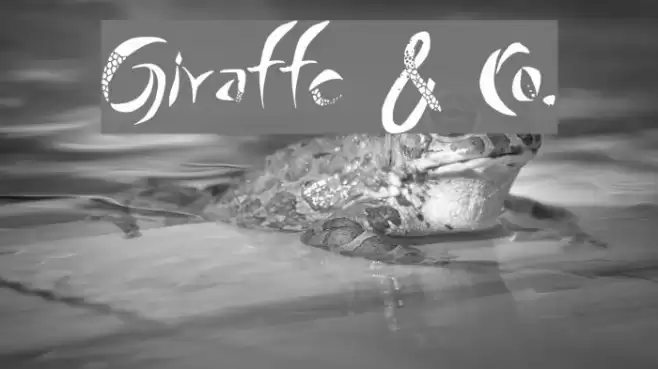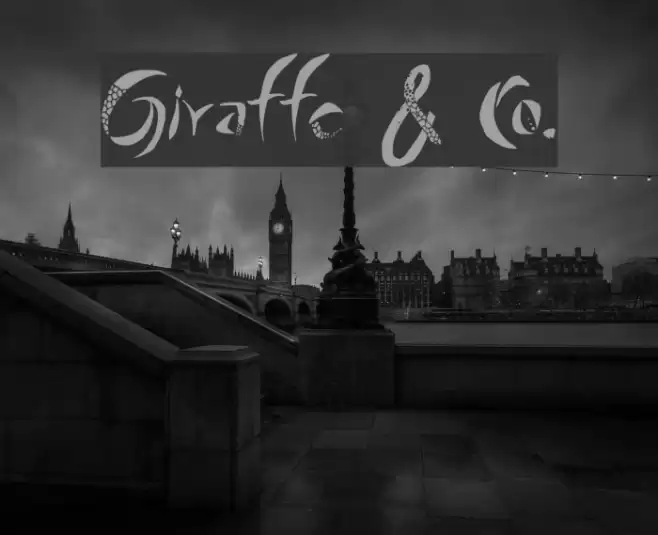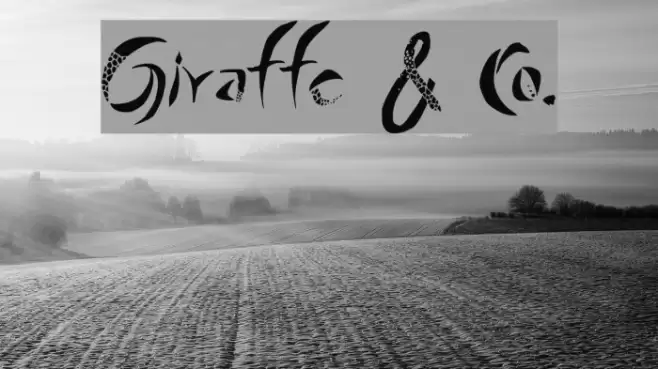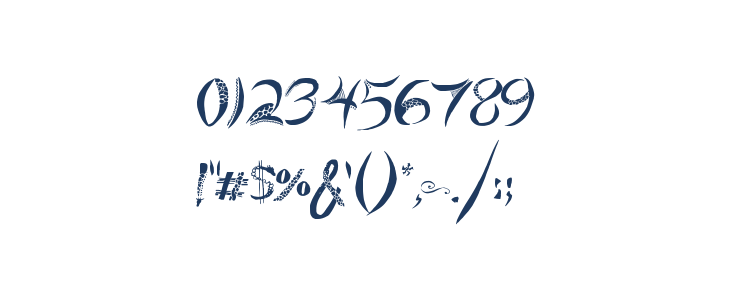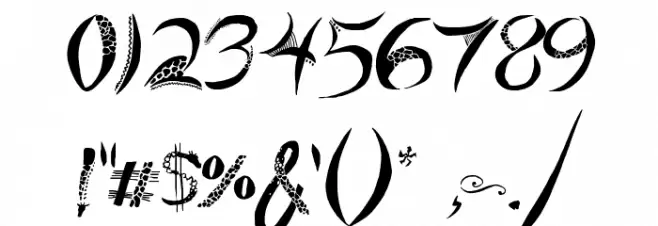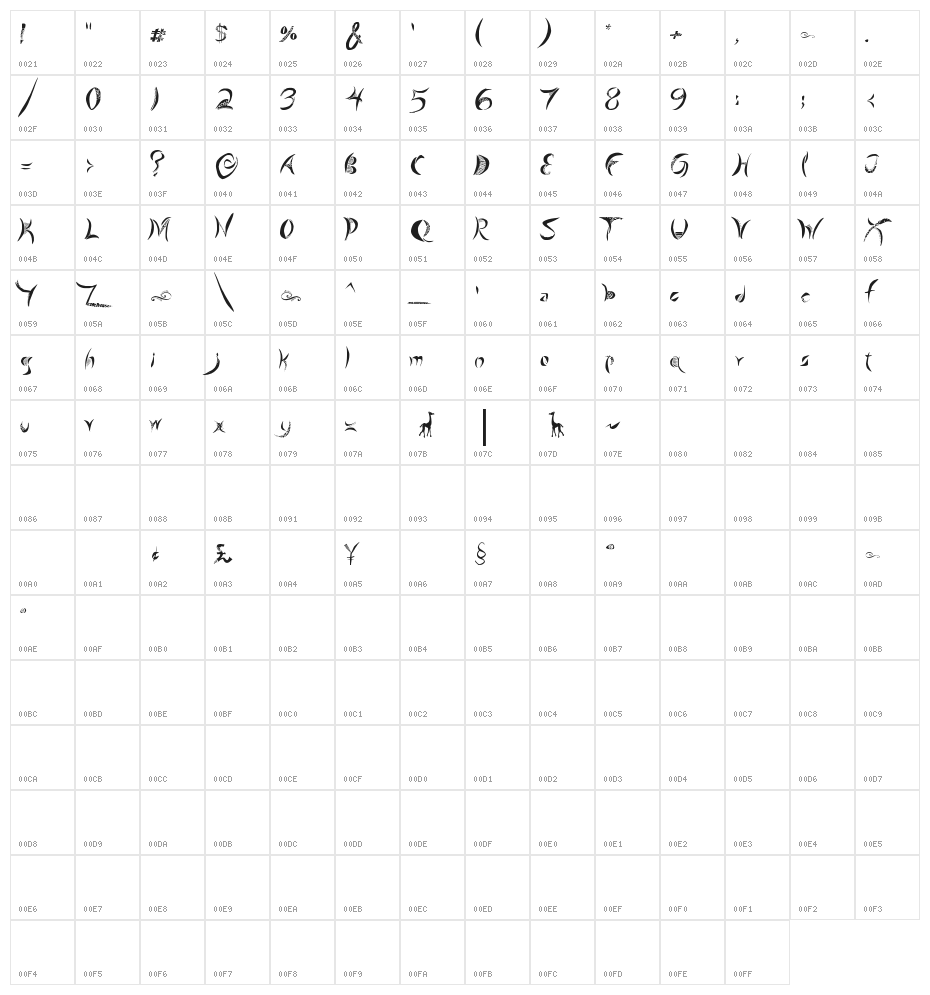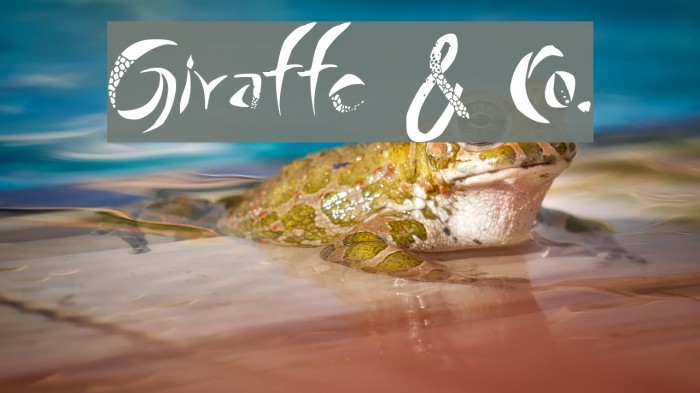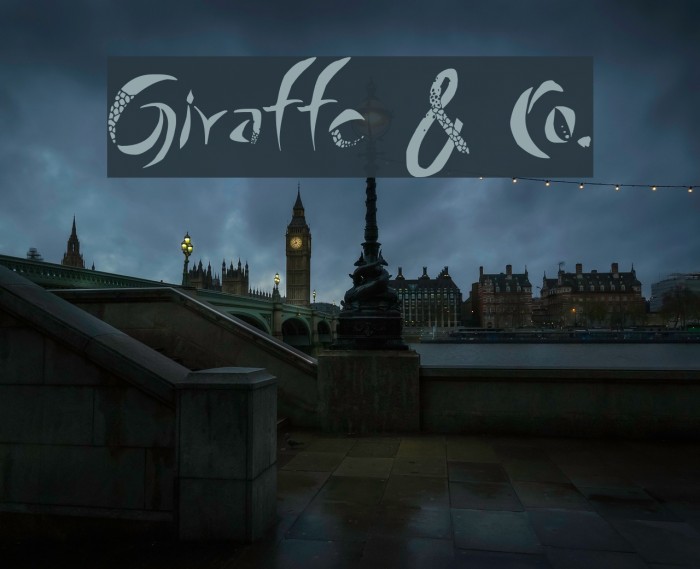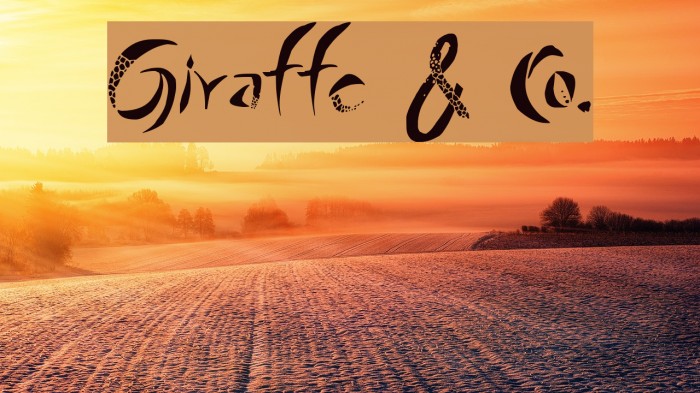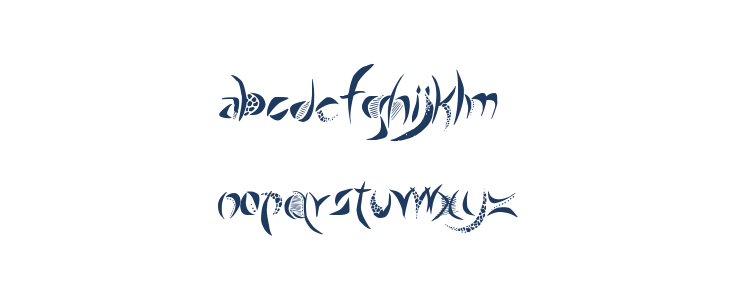
Giraffe & Co. Font
Giraffe & Co. Description
This font features a highly decorative and artistic style, characterized by its unique and intricate patterns within each character. The letters exhibit a dynamic flow with varying stroke thicknesses, incorporating elements such as dots, stripes, and abstract shapes that give it a textured appearance. The overall design is bold and eye-catching, making it suitable for creative and unconventional projects. The characters maintain a consistent height, but the internal detailing varies, adding a sense of movement and energy. This font is ideal for projects that require a standout visual element, such as posters, album covers, or artistic branding.
A decorative and artistic font with intricate patterns and dynamic flow from Decorative fonts.
- Proposed Projects: Ideal for posters, album covers, artistic branding, and creative design projects.